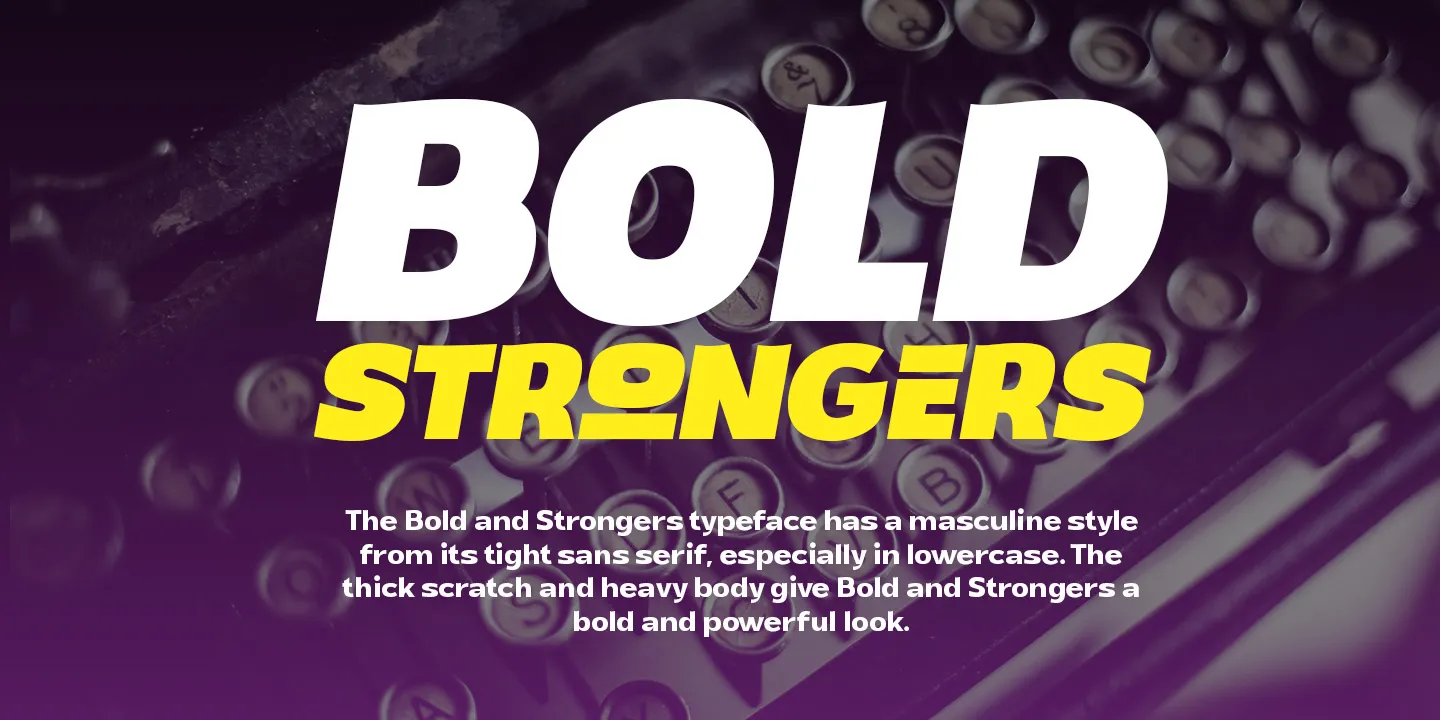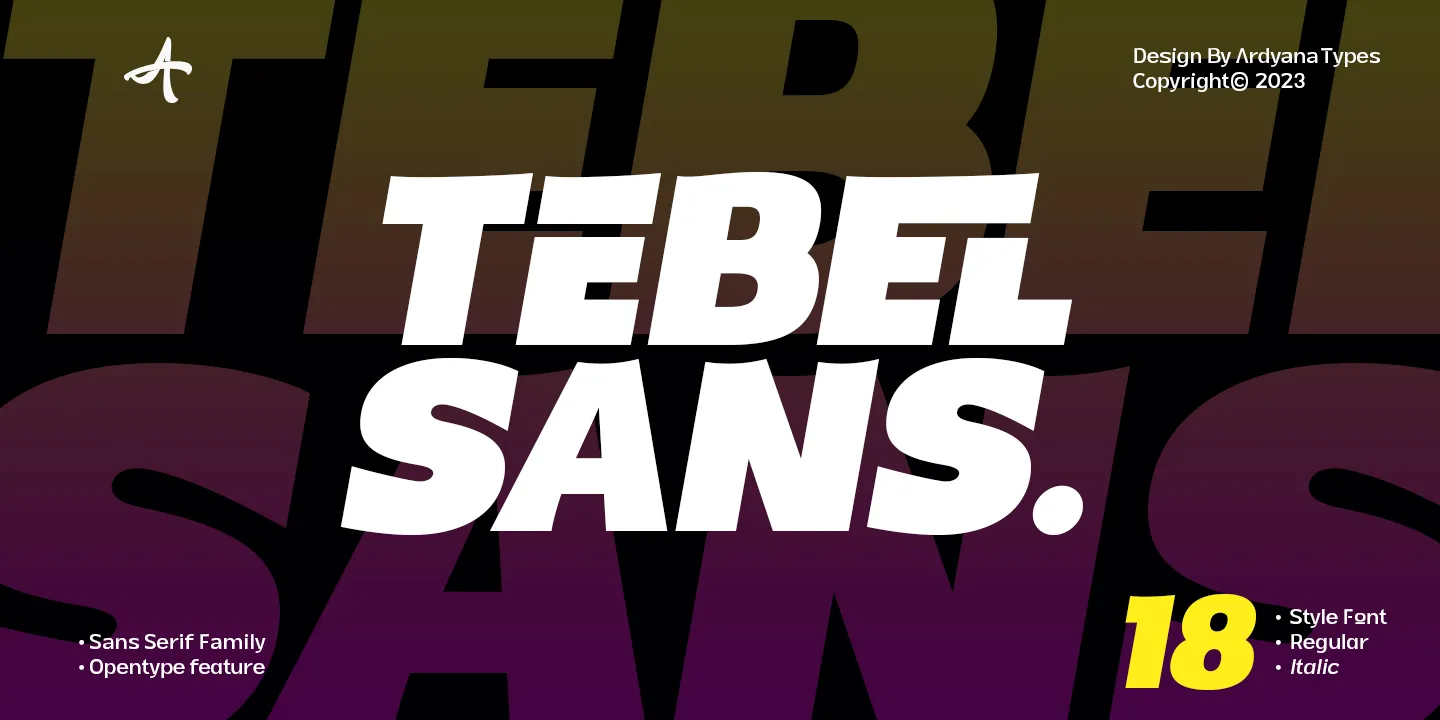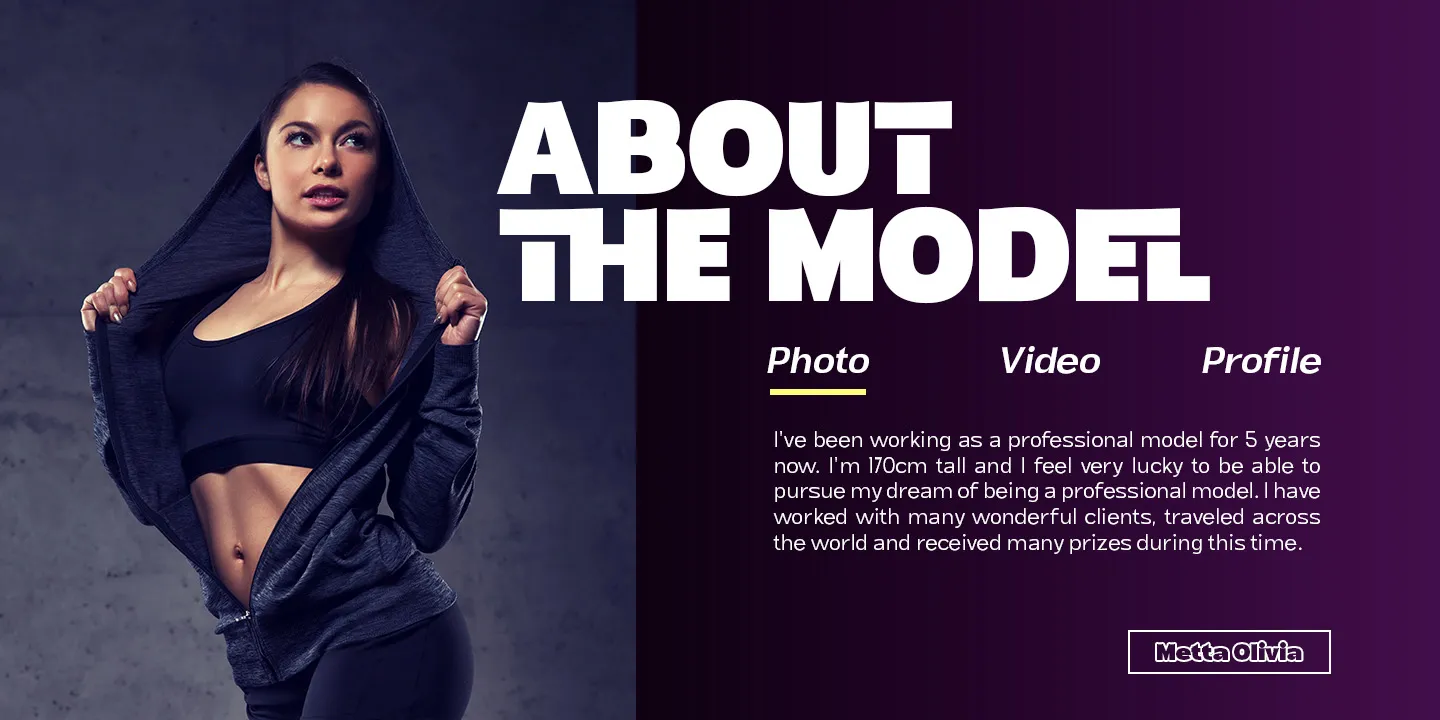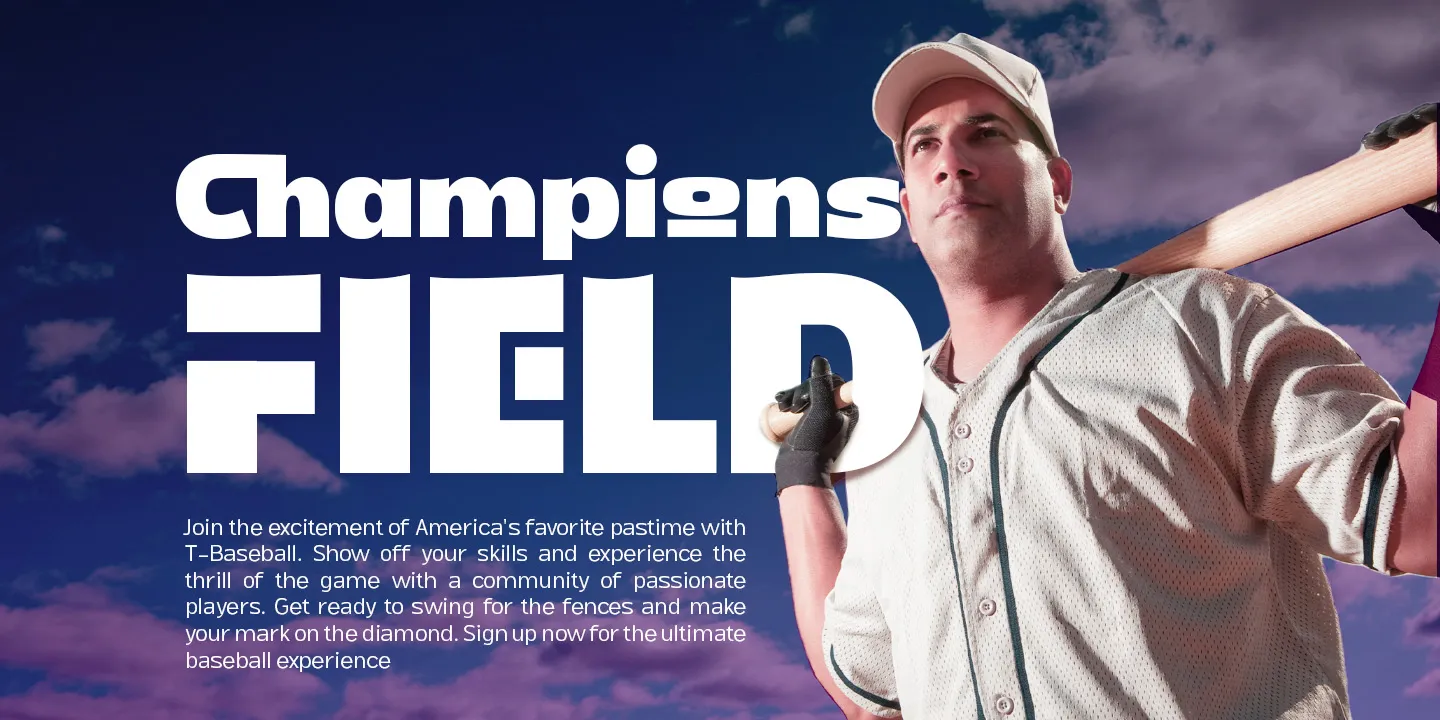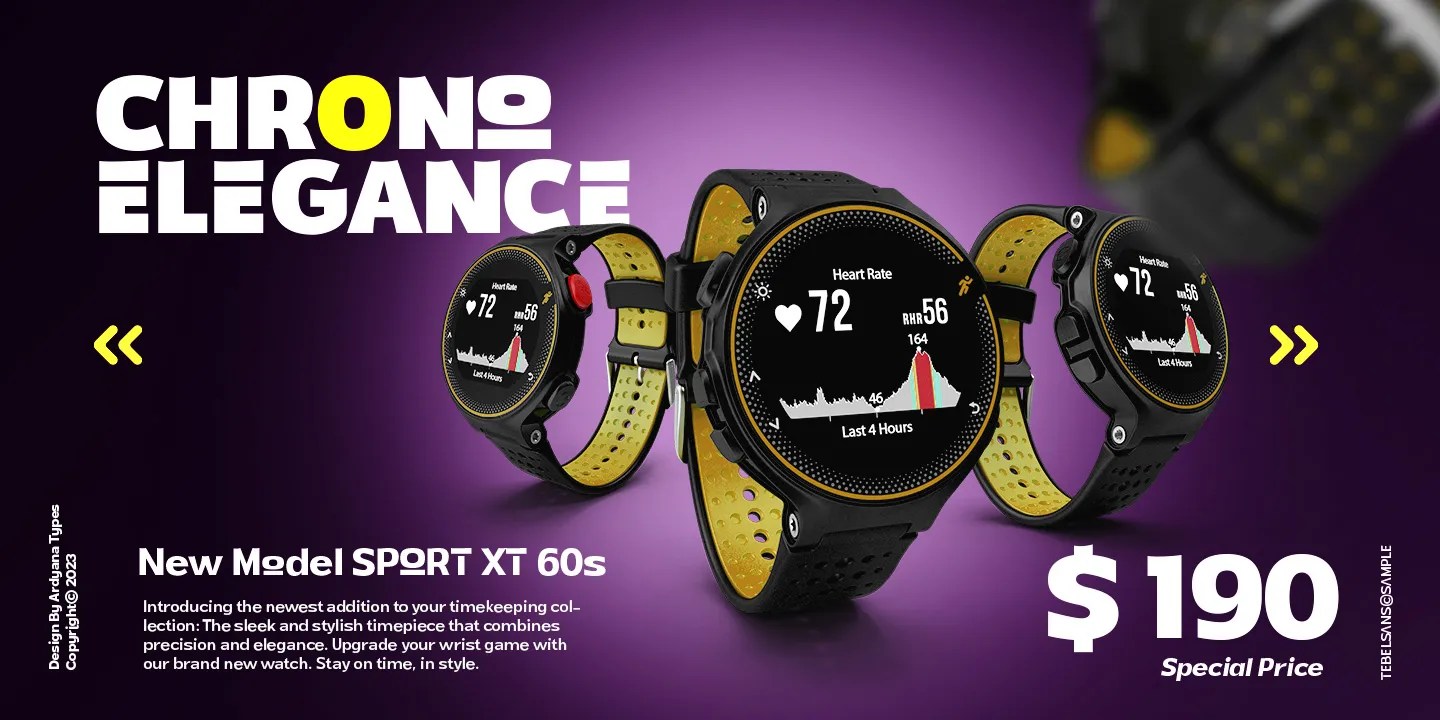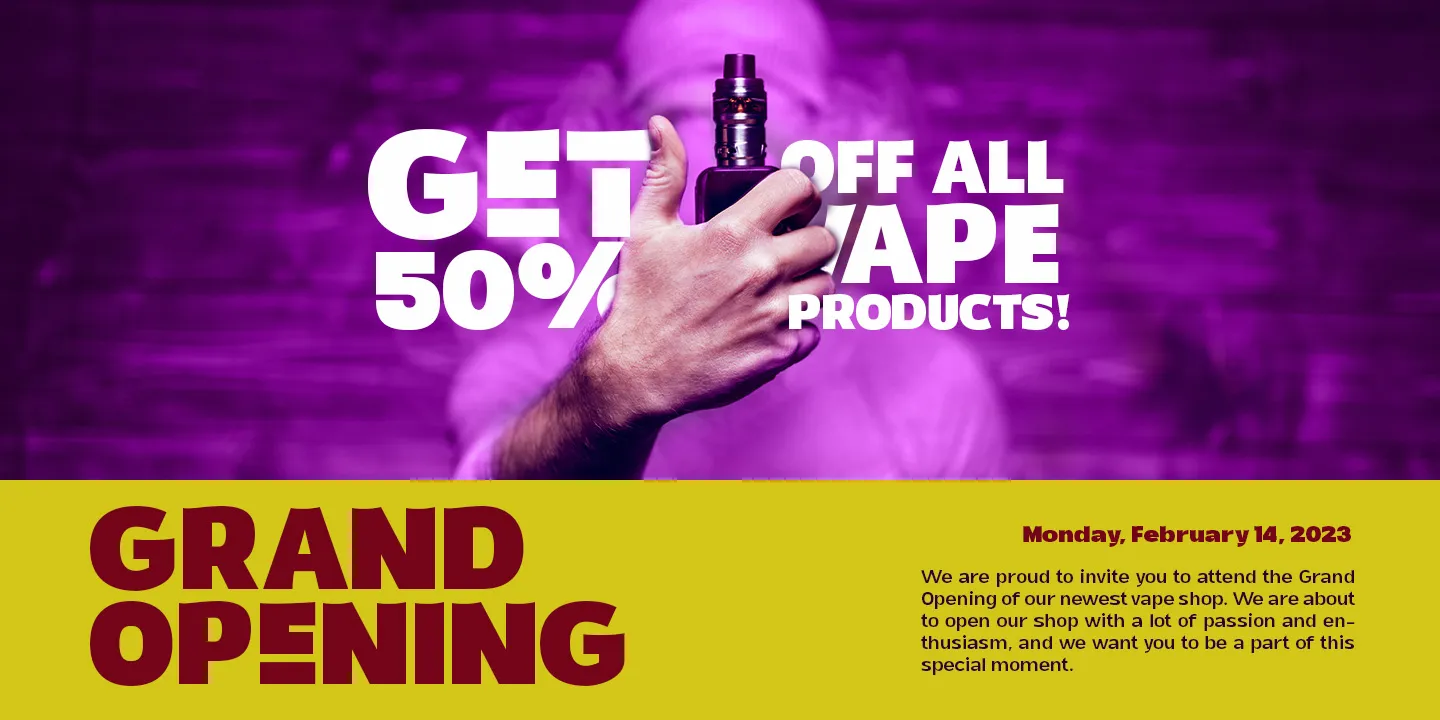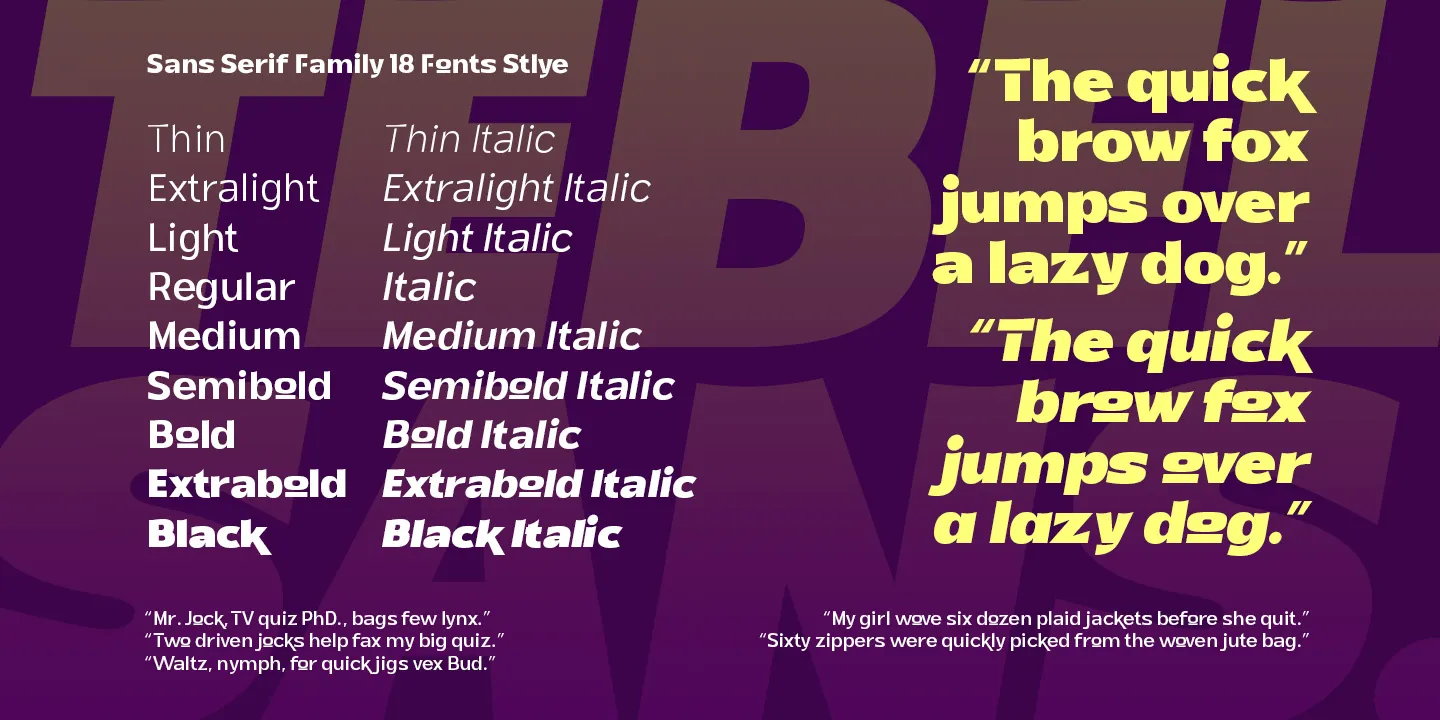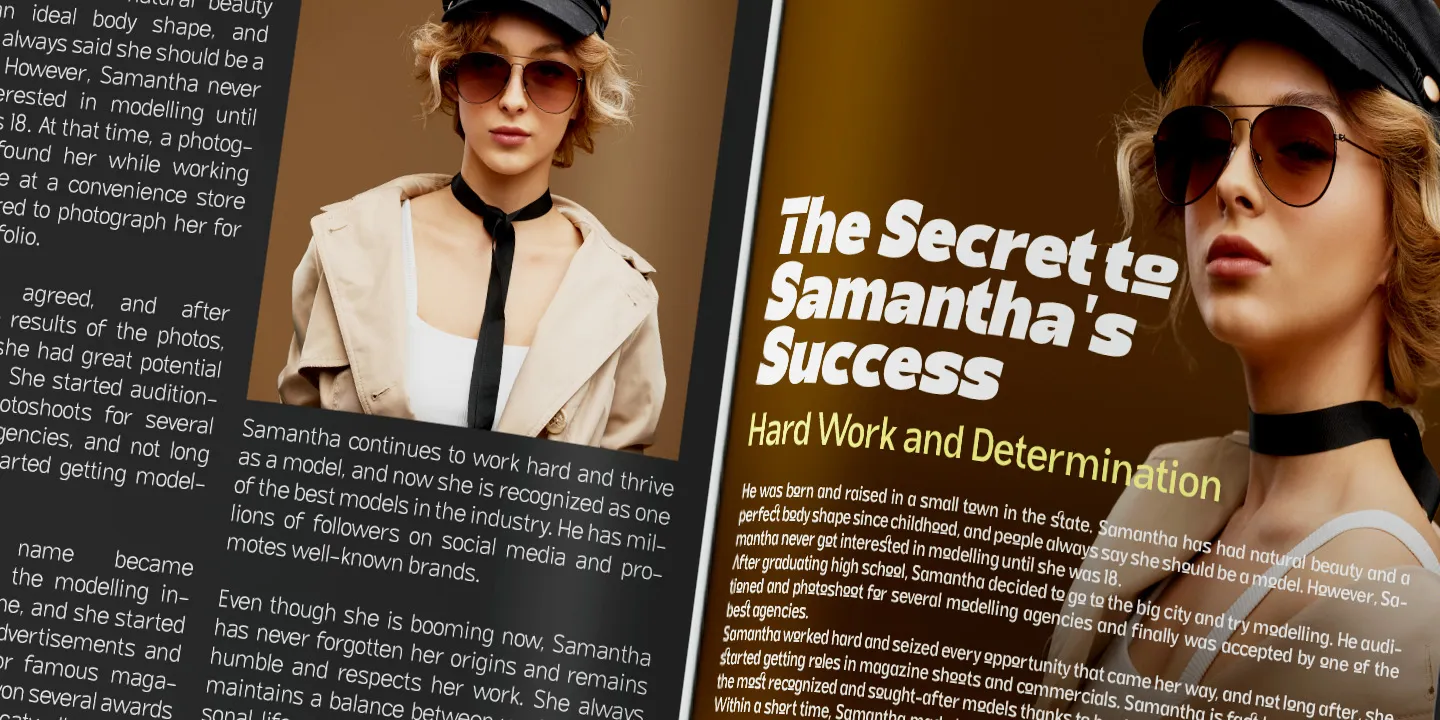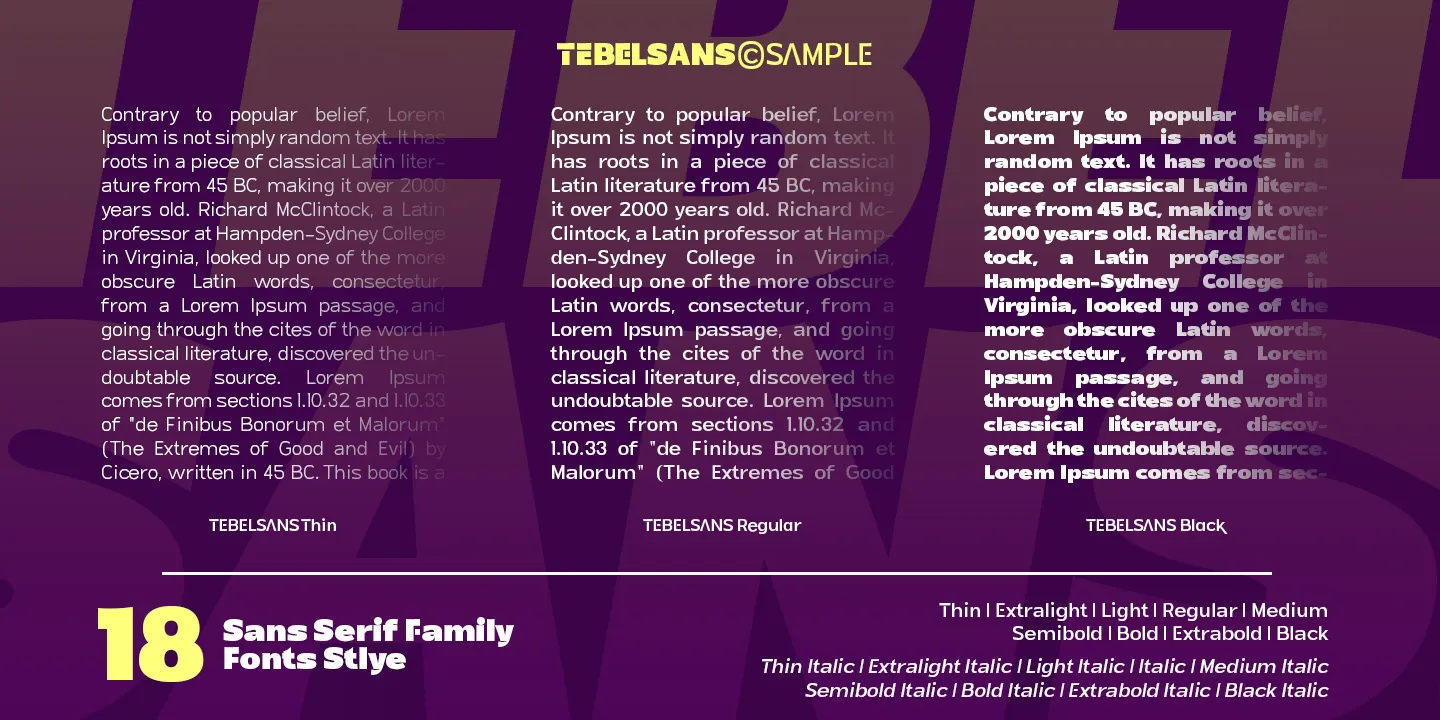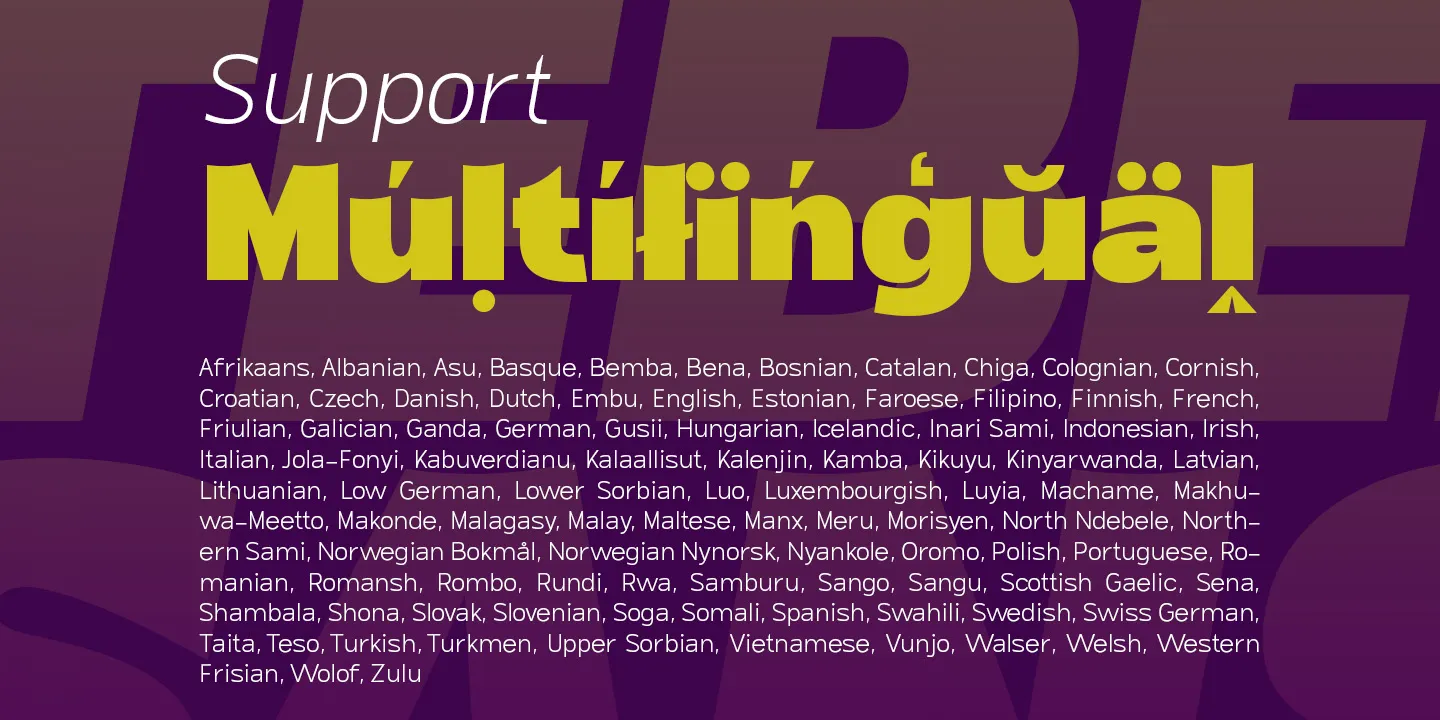
Tebel Sans - Sans Serif Font Family
18 Styles
Tebel Sans is a modern, ultra-bold sans-serif font perfect for all kinds of designs. With nine different thickness variations and two different typefaces (regular and italic), this font is the ideal choice for your designs. Its unique thickness makes your design look like a bold and elegant title. It is also a practical body text, with a large selection of different font families available in Opentype features such as multilingual ligature. Alternative fonts make it even more attractive and valuable for various graphic designs. Tebel Sans has a uniqueness that makes your designs look more powerful and modern.
• ffi ffi
• ffl ffl
• Ch Ch
• EL EL
• Fk Fk
• TH TH
• fb fb
• fh fh
• fk fk
• fl fl
• ft ft